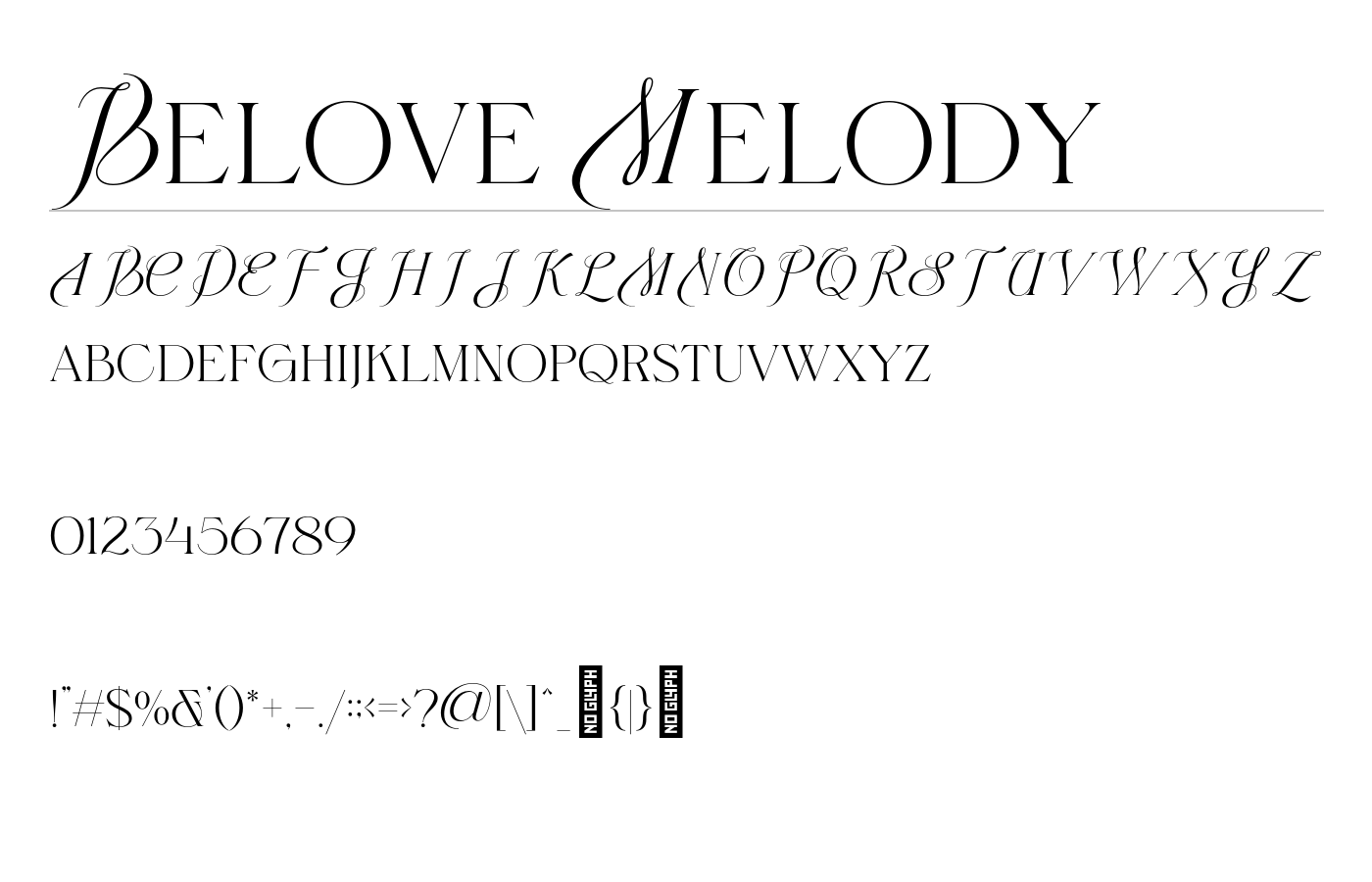
Belove Melody is an elegant serif font with a high contrast between thin and thick strokes, featuring slender, delicate letterforms that combine classic sophistication with graceful, calligraphic flair in its italic style. This refined typeface conveys luxury and romance, making it ideal for fashion branding, wedding invitations, and upscale editorial design where a touch of timeless beauty and stylish charm is desired. Its tall, narrow proportions and fine details create an airy, sophisticated look perfect for headlines and logos that demand attention with subtle elegance.
Belove Melody Font
About Belove Melody Font